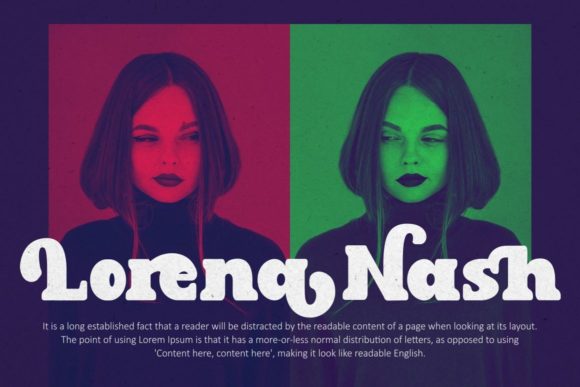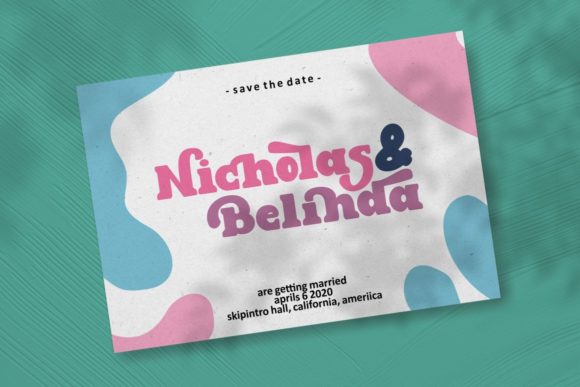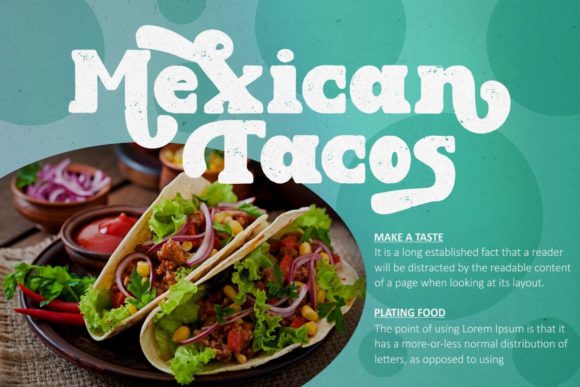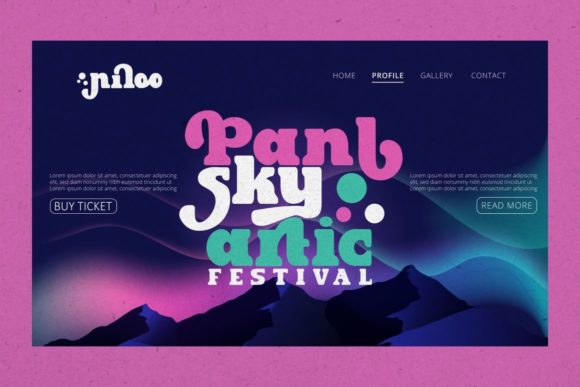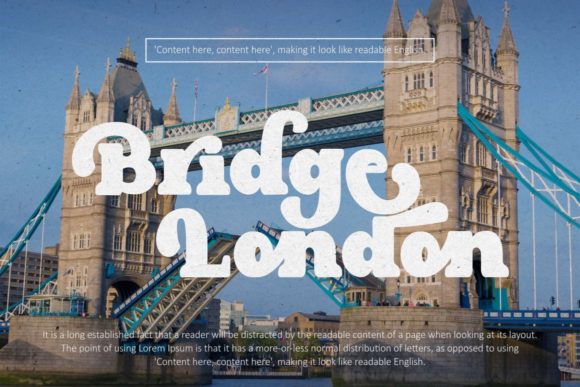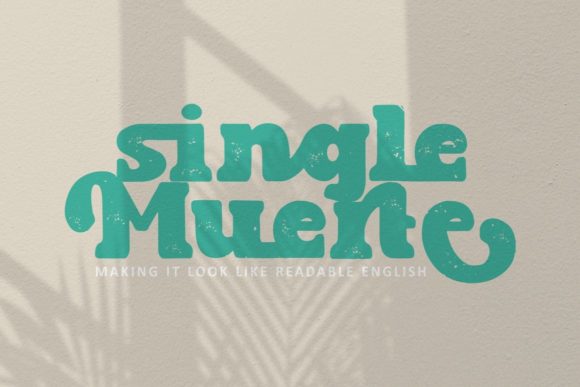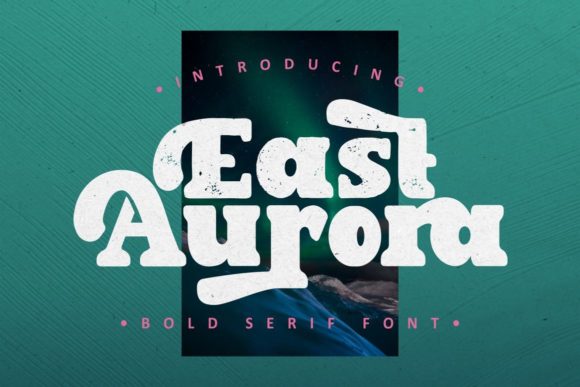
Introducing East Aurora Font: A Bold, Stylistic, and Cool Serif Font
Are you a designer or crafter looking for a font that can add a touch of elegance and sophistication to your designs? Look no further than the East Aurora Font. This bold, stylistic, and cool serif font is perfect for anyone who wants to create stunning visual content that stands out from the crowd. In this article, we’ll explore the features and benefits of East Aurora Font, and show you how to make the most of this amazing font.
What is East Aurora Font?
East Aurora Font is a bold, stylistic, and cool serif font that is designed to make a statement. With its unique and elegant design, this font is perfect for creating a wide range of designs, from logos and branding materials to posters, flyers, and more. Whether you’re a professional designer or a crafty DIY enthusiast, East Aurora Font is a great addition to your font collection.
Key Features of East Aurora Font
So, what makes East Aurora Font so special? Here are some of its key features:
- Bold and Stylistic Design: East Aurora Font has a bold and stylistic design that is sure to grab attention. Its unique serif design gives it a touch of elegance and sophistication.
- PUA Encoded: This font is PUA (Private Use Area) encoded, which means you can access all glyphs and swashes with ease. This makes it easy to use and customize the font to suit your needs.
- Endless Possibilities: With East Aurora Font, the possibilities are endless. Use it for logos, branding materials, posters, flyers, and more. You can also use it for digital designs, such as social media graphics and website headers.
Benefits of Using East Aurora Font
So, why should you use East Aurora Font for your designs? Here are some of the benefits:
- Stand Out from the Crowd: With its unique and elegant design, East Aurora Font is sure to make your designs stand out from the crowd.
- Easy to Use: This font is easy to use and customize, even for beginners. The PUA encoding makes it easy to access all glyphs and swashes.
- Versatile: East Aurora Font is versatile and can be used for a wide range of designs, from logos and branding materials to posters and flyers.
- High-Quality Design: This font is designed to high-quality standards, ensuring that your designs look professional and polished.
In conclusion, East Aurora Font is a bold, stylistic, and cool serif font that is perfect for designers and crafters. With its unique and elegant design, PUA encoding, and endless possibilities, this font is a great addition to any font collection. Whether you’re a professional designer or a crafty DIY enthusiast, East Aurora Font is sure to inspire your creativity and help you create stunning visual content.